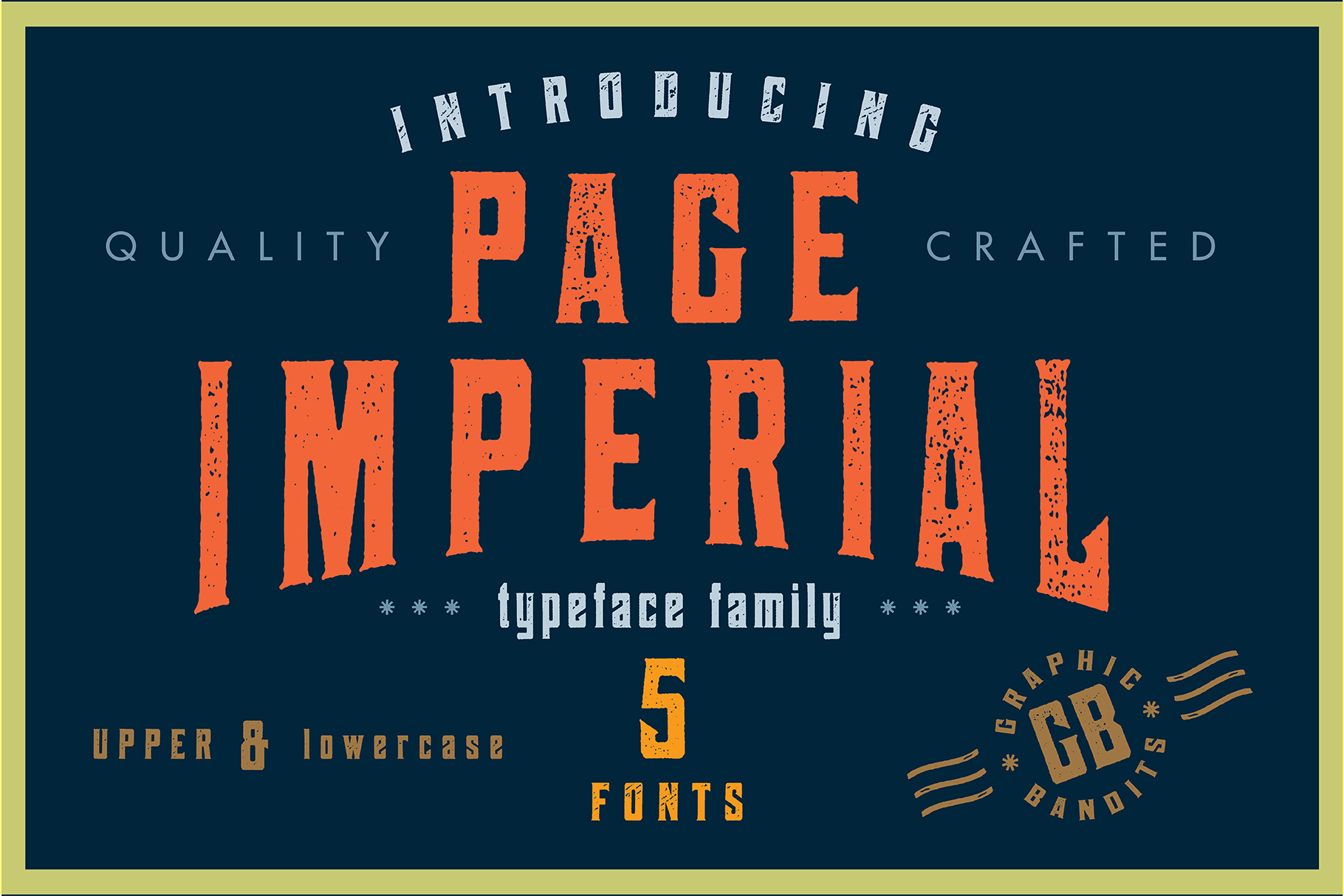
Page Imperial - Vintage Typeface
PAGE IMPERIAL is here!
Page Imperial is a Vintage Typeface that includes 5 OTF Files. Page Imperial comes with Regular, Rounded, Aged, Weathered & Worn OTF files that will enable you a variety of different uses on Logos, Labels, Design Projects, Posters and any other design projects you may dream up.